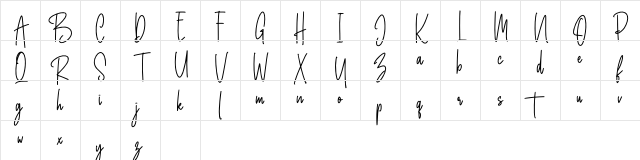
Better Caller Regular Free Font
Better Caller Regular
Designer: Aldedesign 2019
Design Context for Better Caller
Better Caller is a composed and adaptable typeface that performs quietly and consistently across a wide range of design contexts.
Pro Tip: Use Better Caller in both headline and body roles to test its range before committing to a single application.